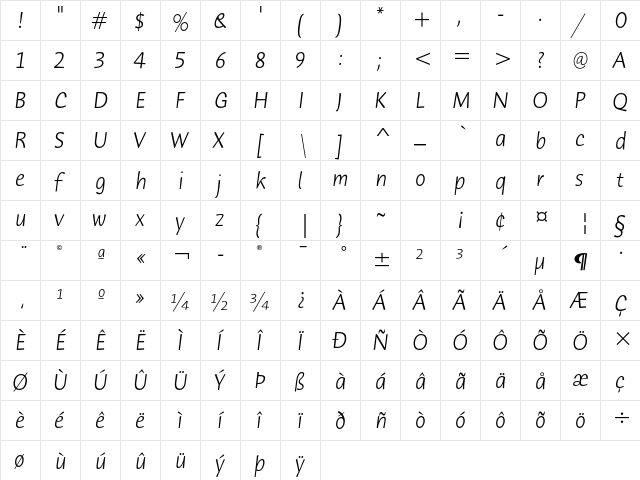
Humana Sans ITC Std Light Ita
Light Ita ·  Timothy Donaldson ·
Design Context for Humana Sans ITC Std Typeface
Humana Sans ITC Std offers clean, dependable letterforms without strong stylistic allegiance, making it a practical choice for designers who need flexibility. The slanted form adds forward momentum and visual energy. Its slender proportions lend an understated elegance to any composition.
Pro Tip: Use Humana Sans ITC Std for emphasis, pull quotes, and subheadings where its slanted energy can add rhythm to the layout.